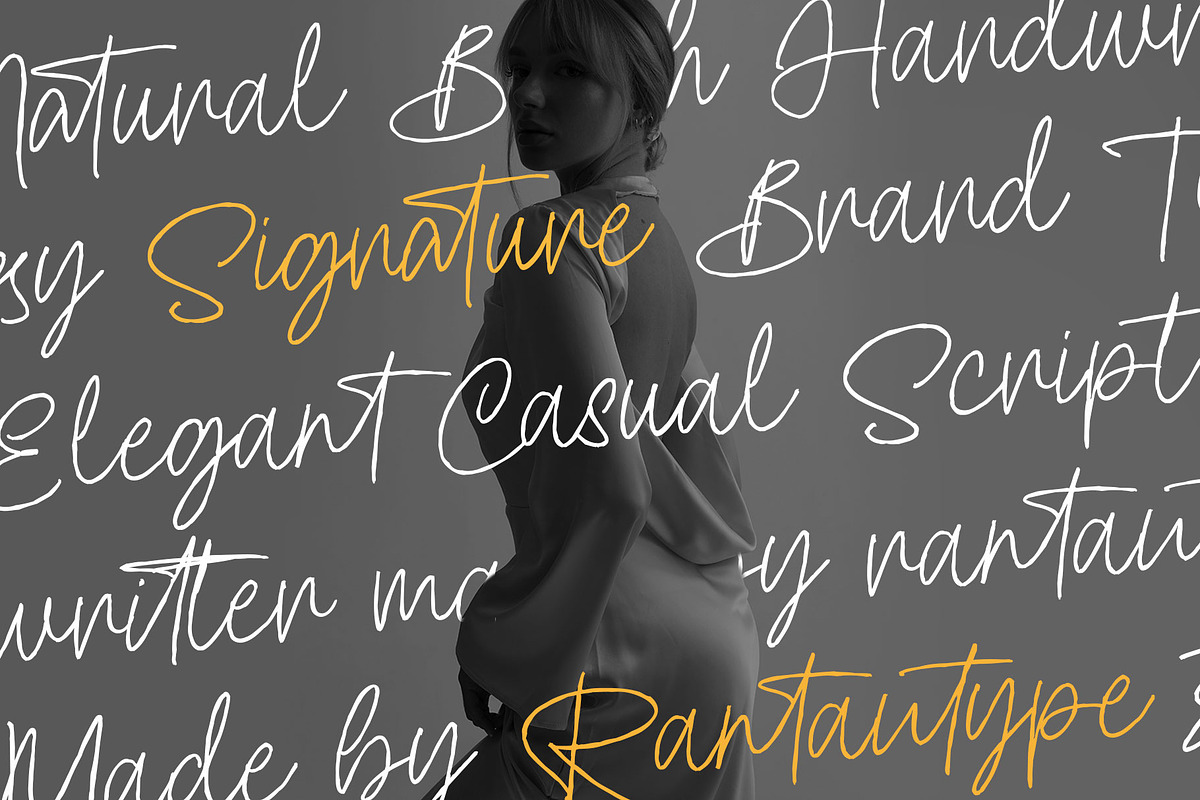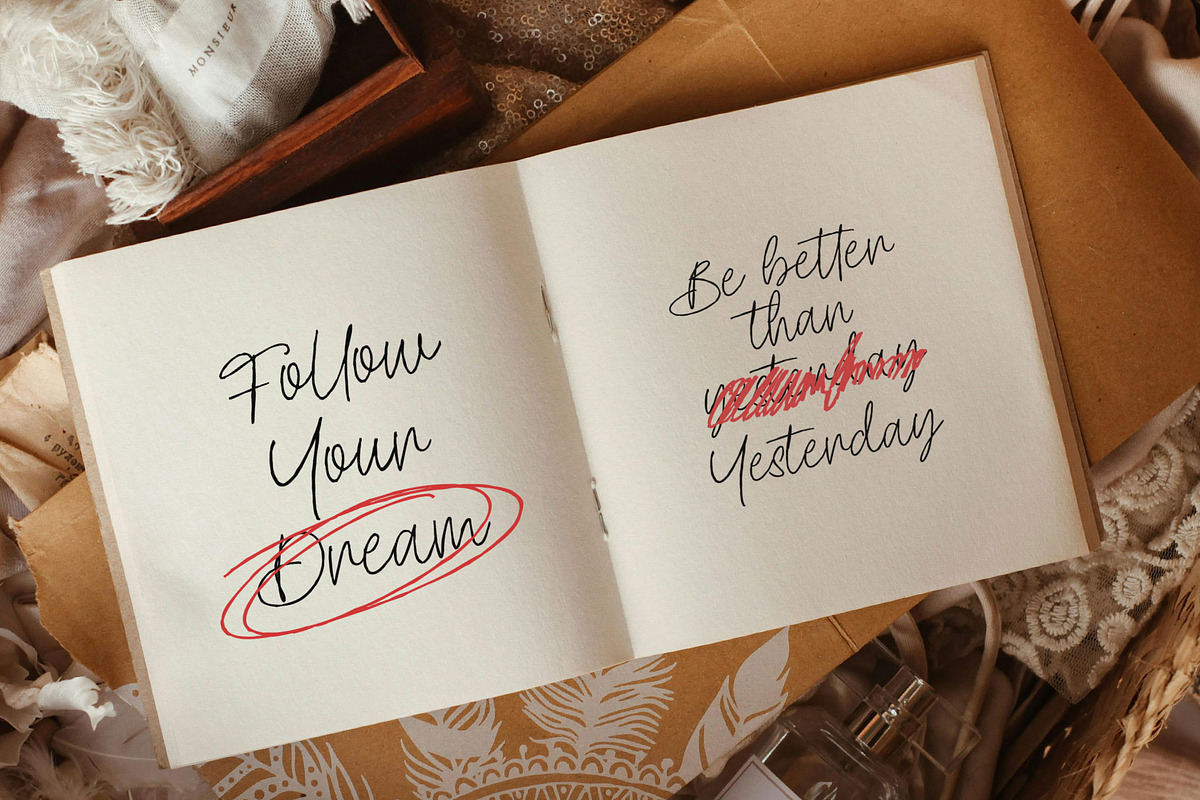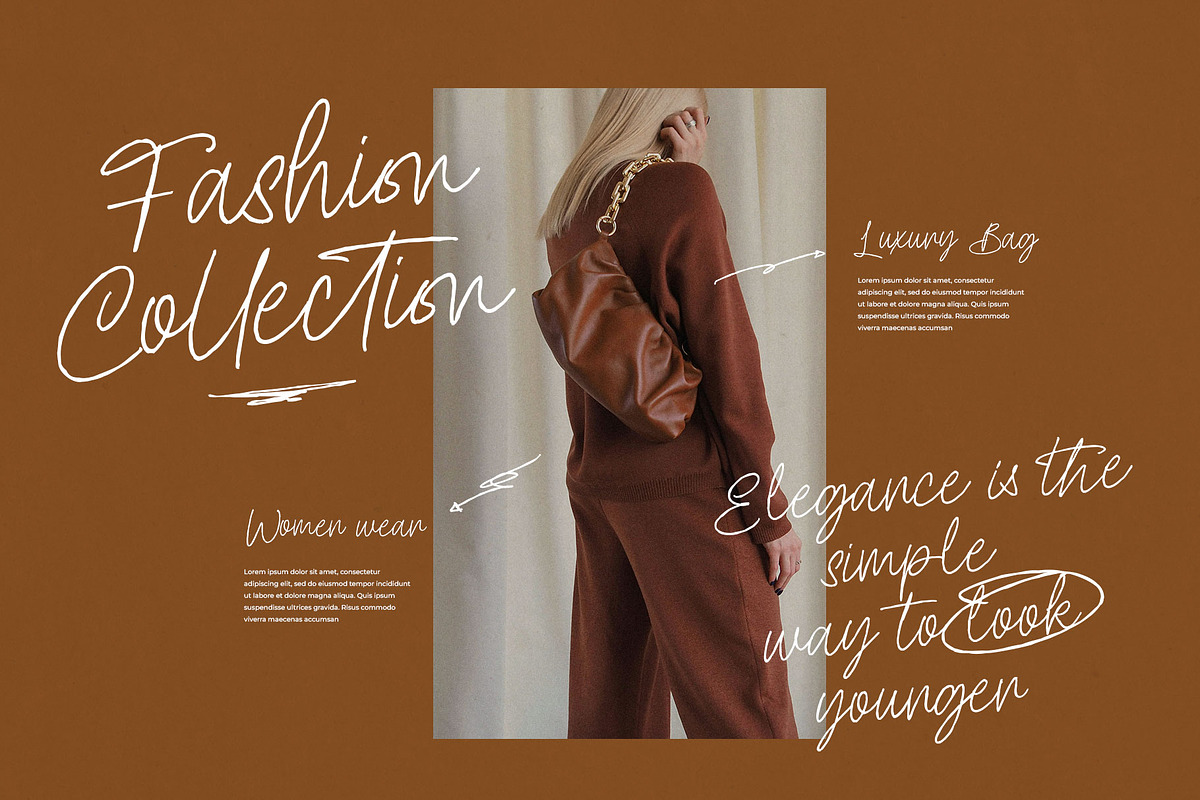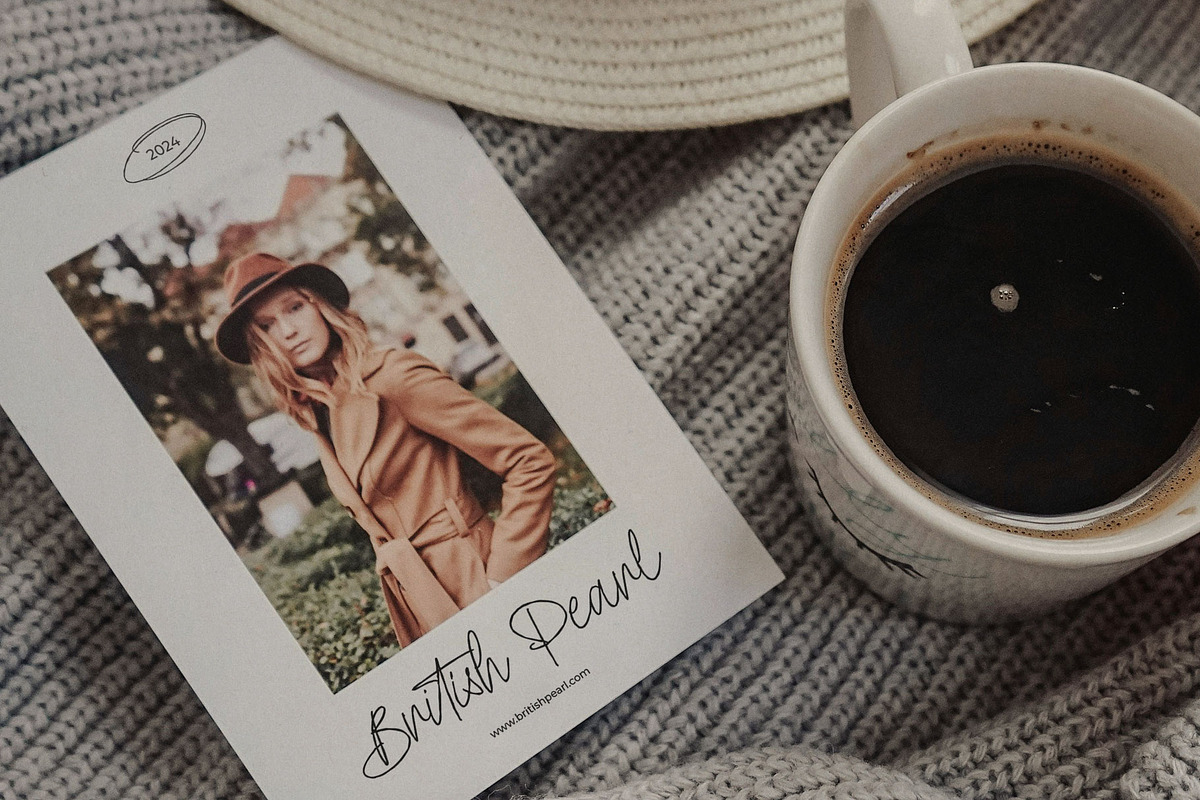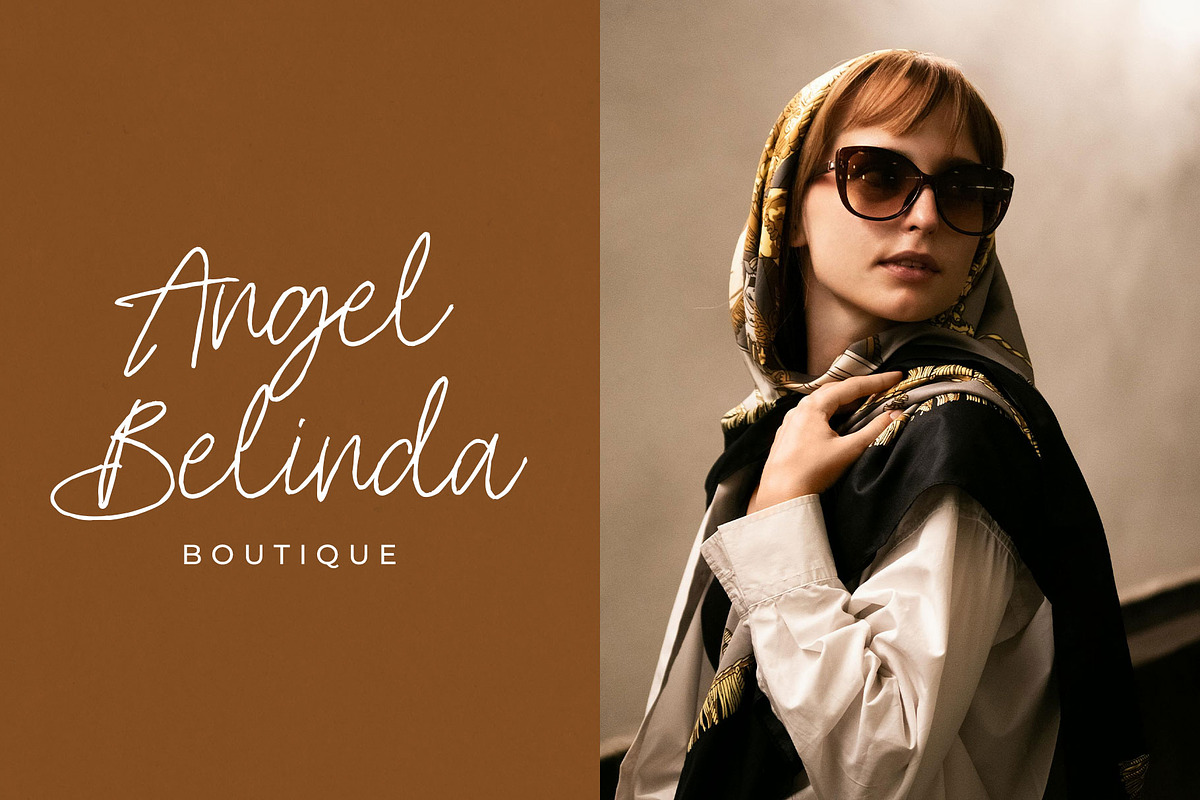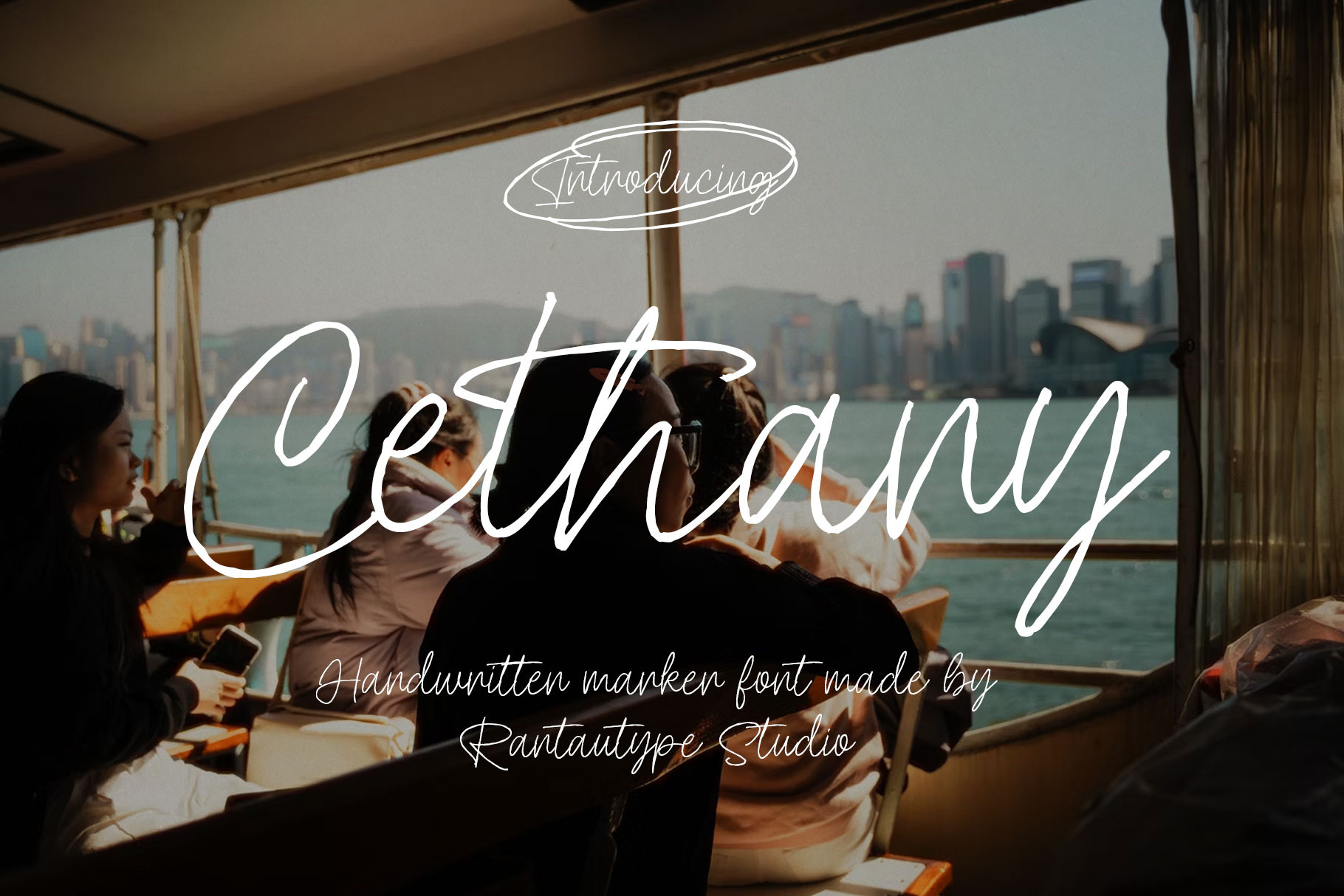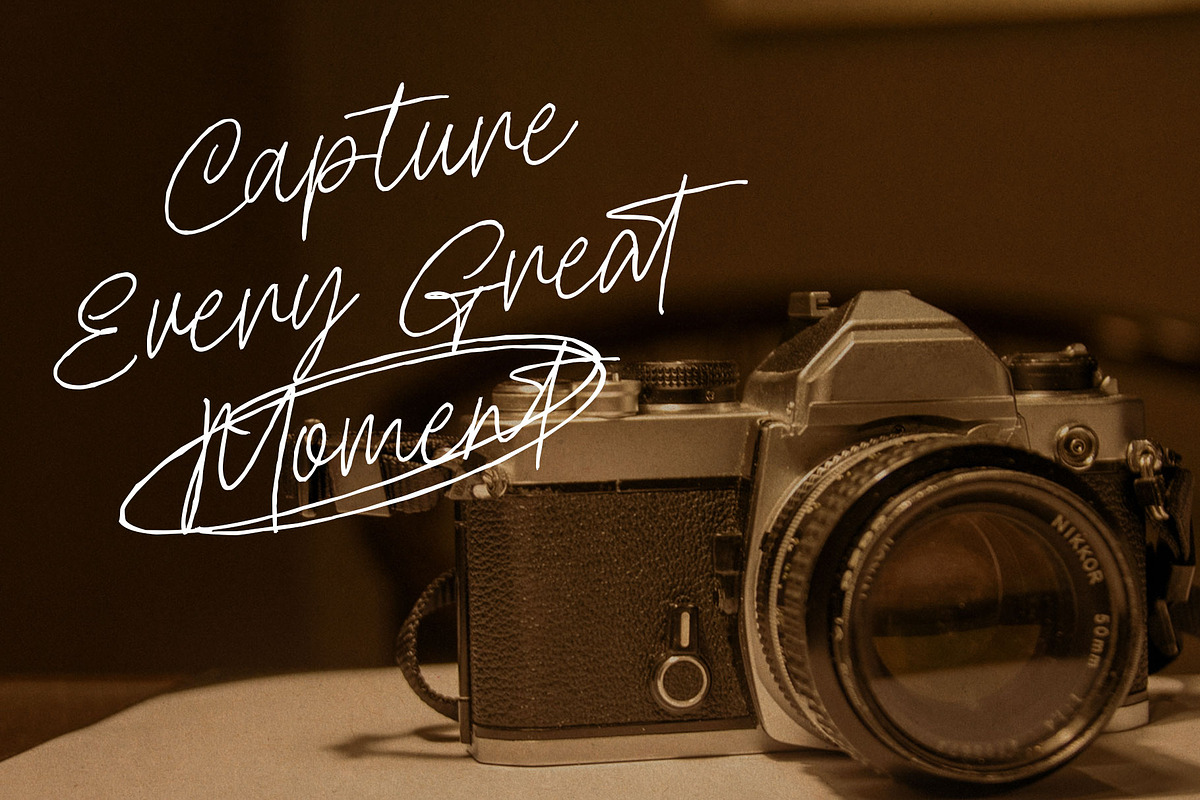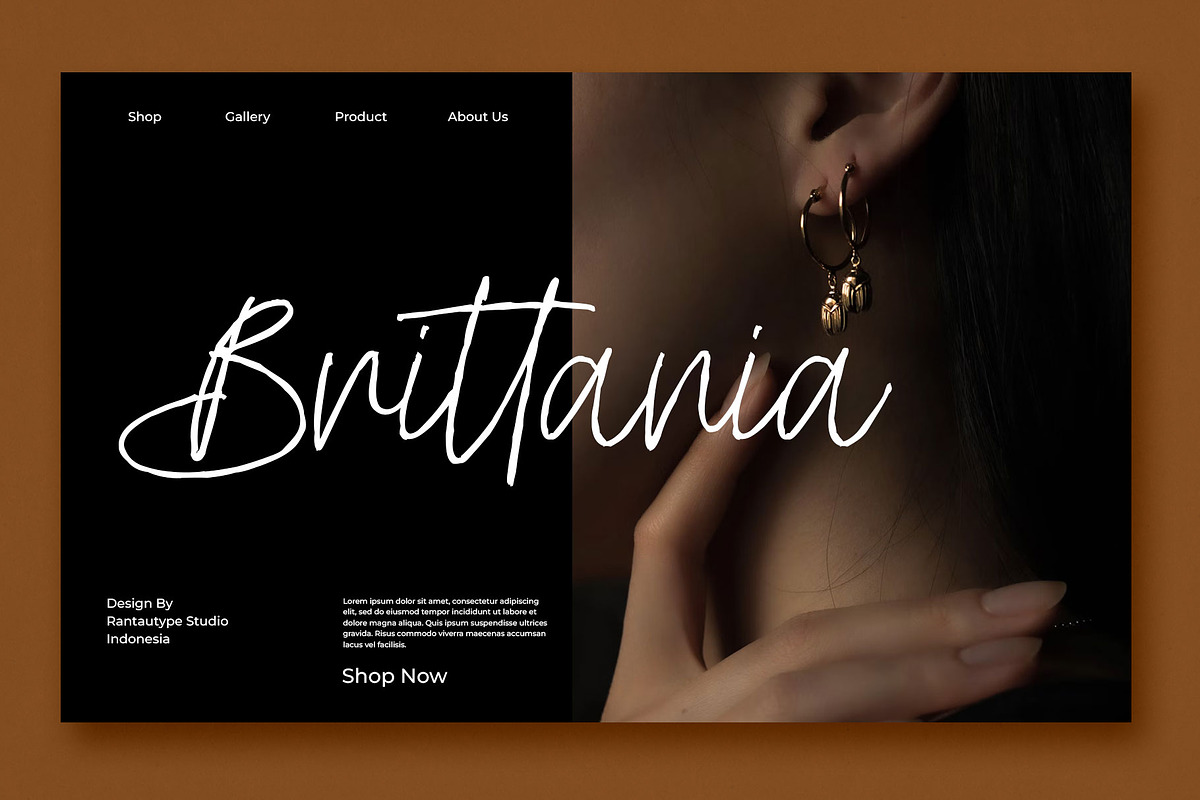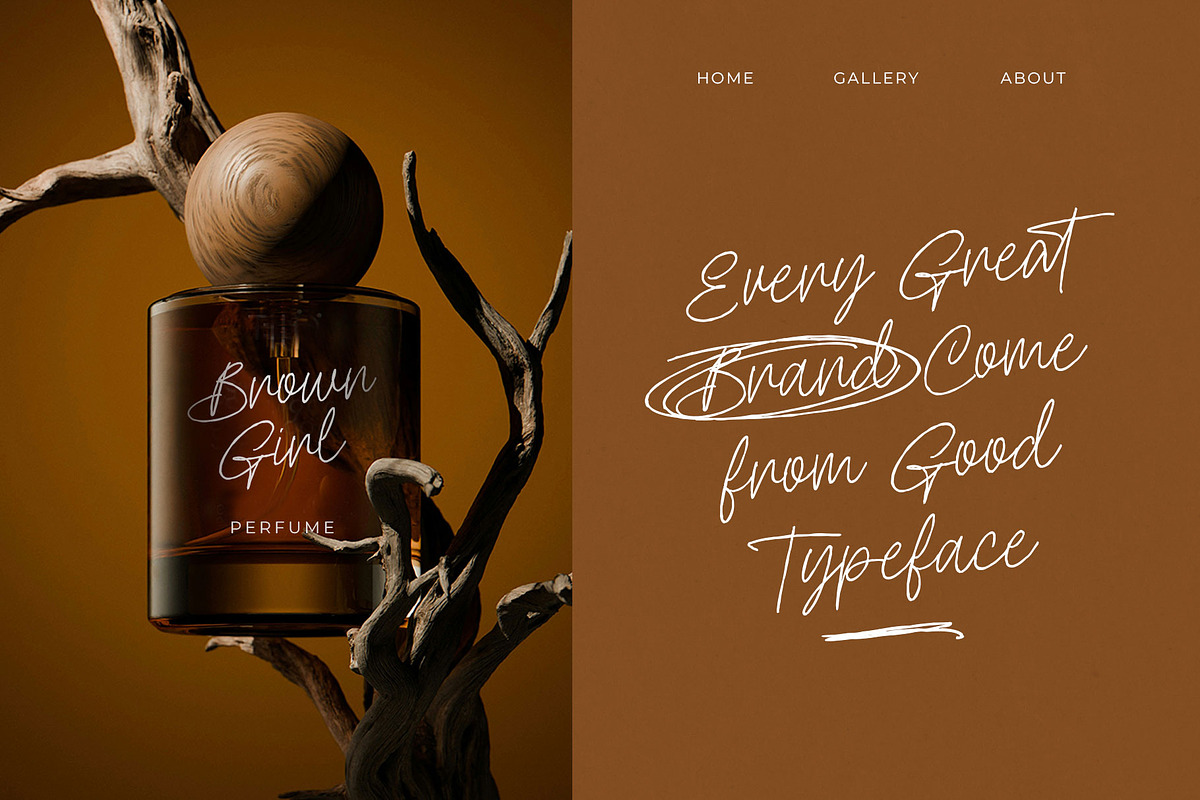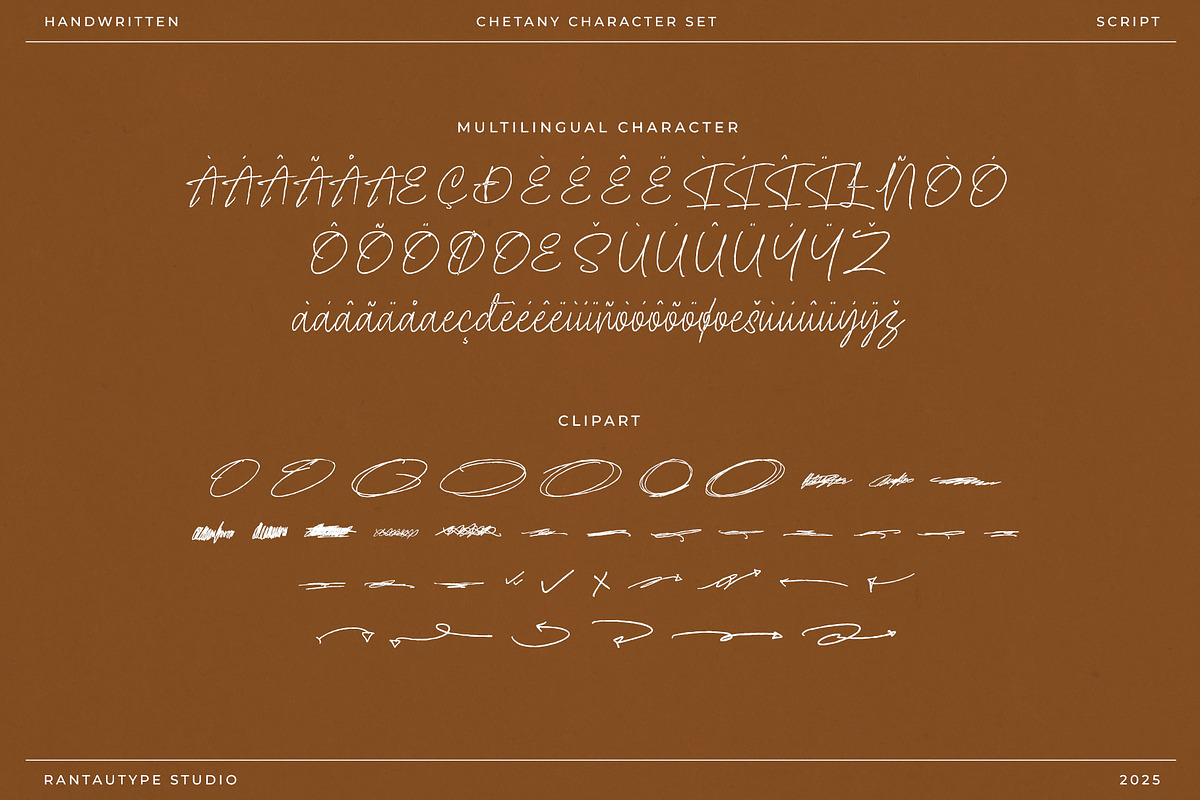
Cethany Handwritten Font
Cethany is brush handwritten font made with natural texture effect. Cethany is a perfectly choice for any creative endeavor, creating, modern, chic, lifestyle design such as logotype, title, cover, branding, invitations, wedding designs, display and magazine, social media posts, advertisements, printed quotes, product packaging, corporate brand, product designs, labels, photography, watermarks, special events and any other project with handwritten touch.
- Alternate and ligature